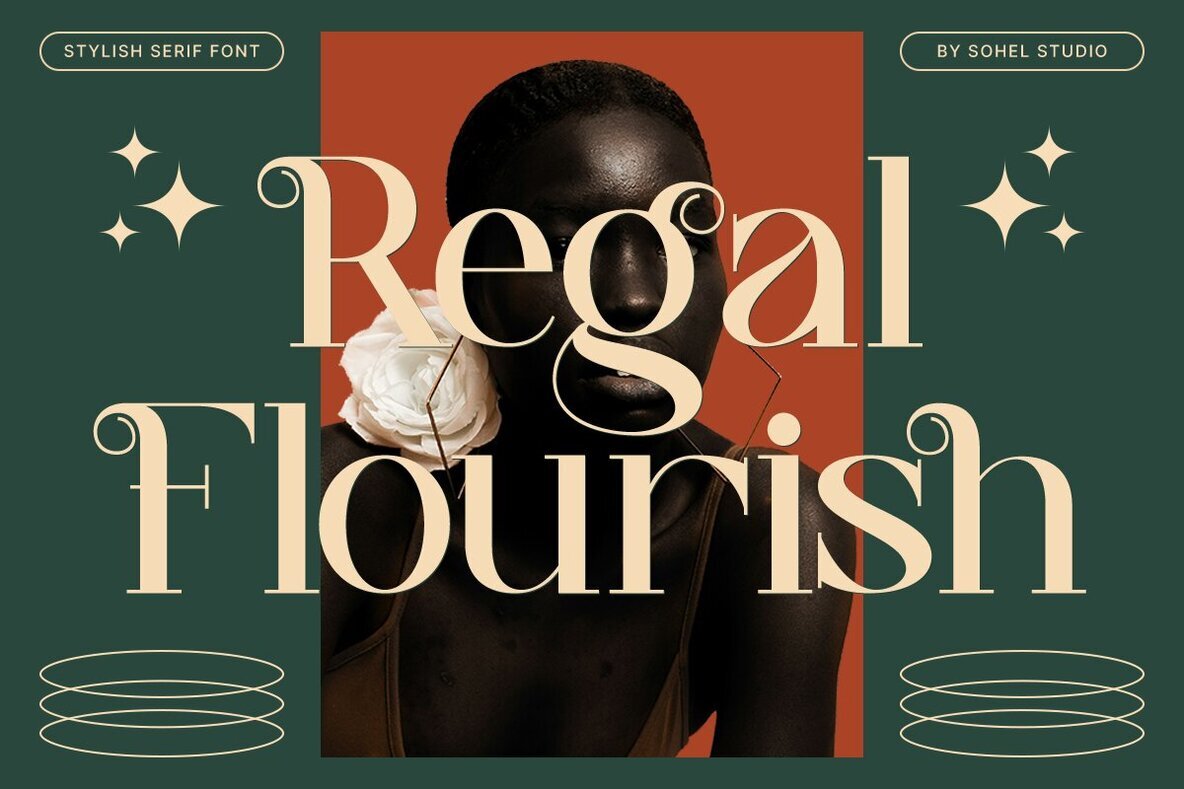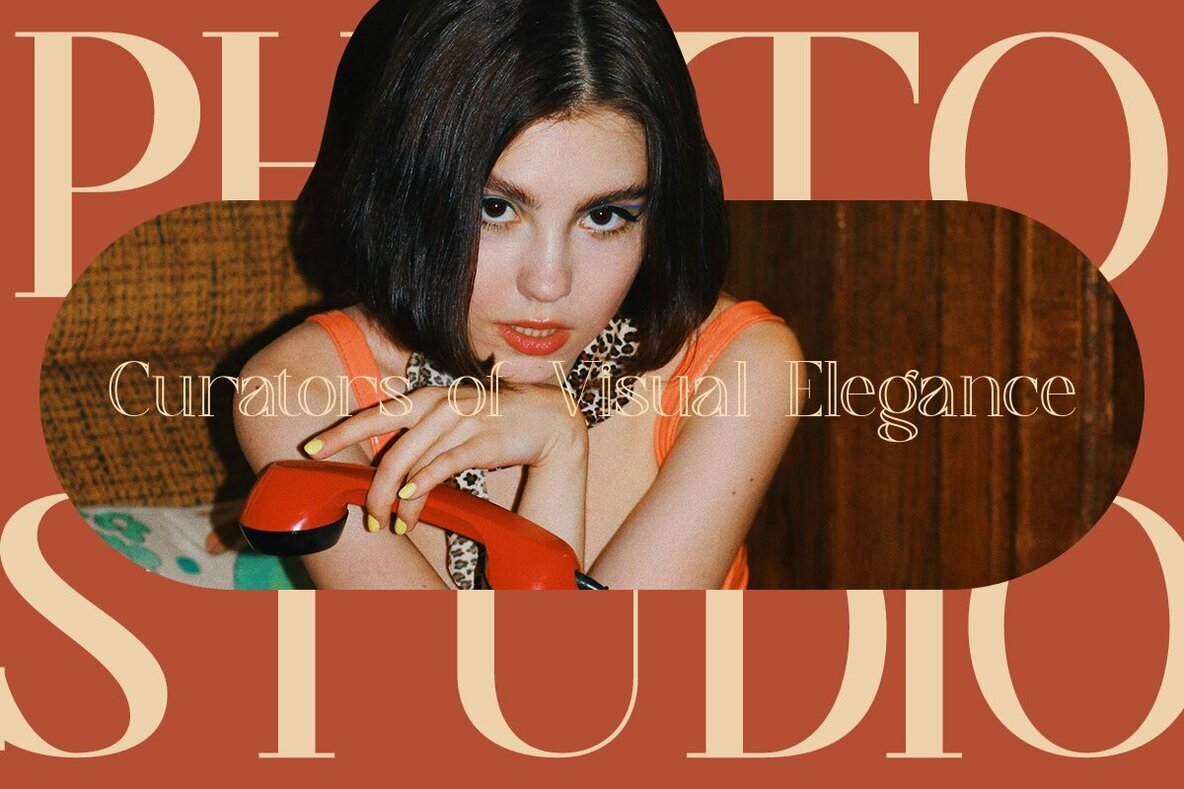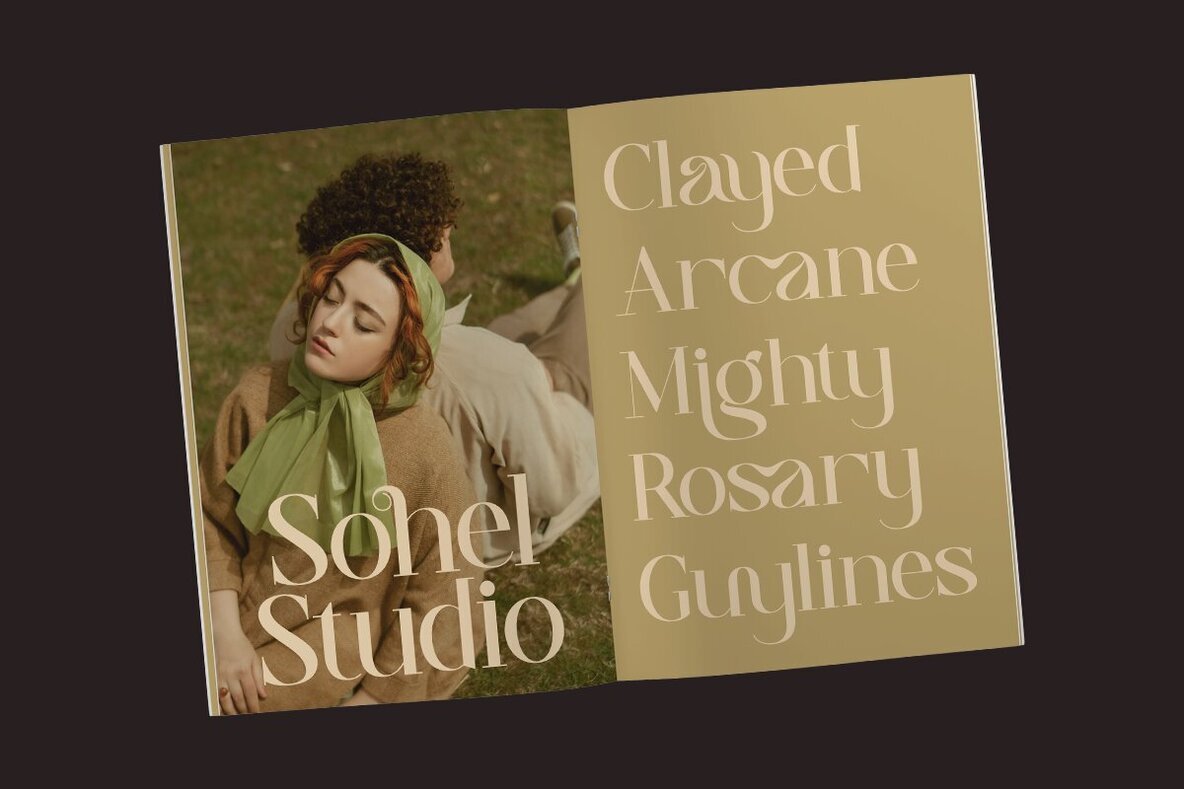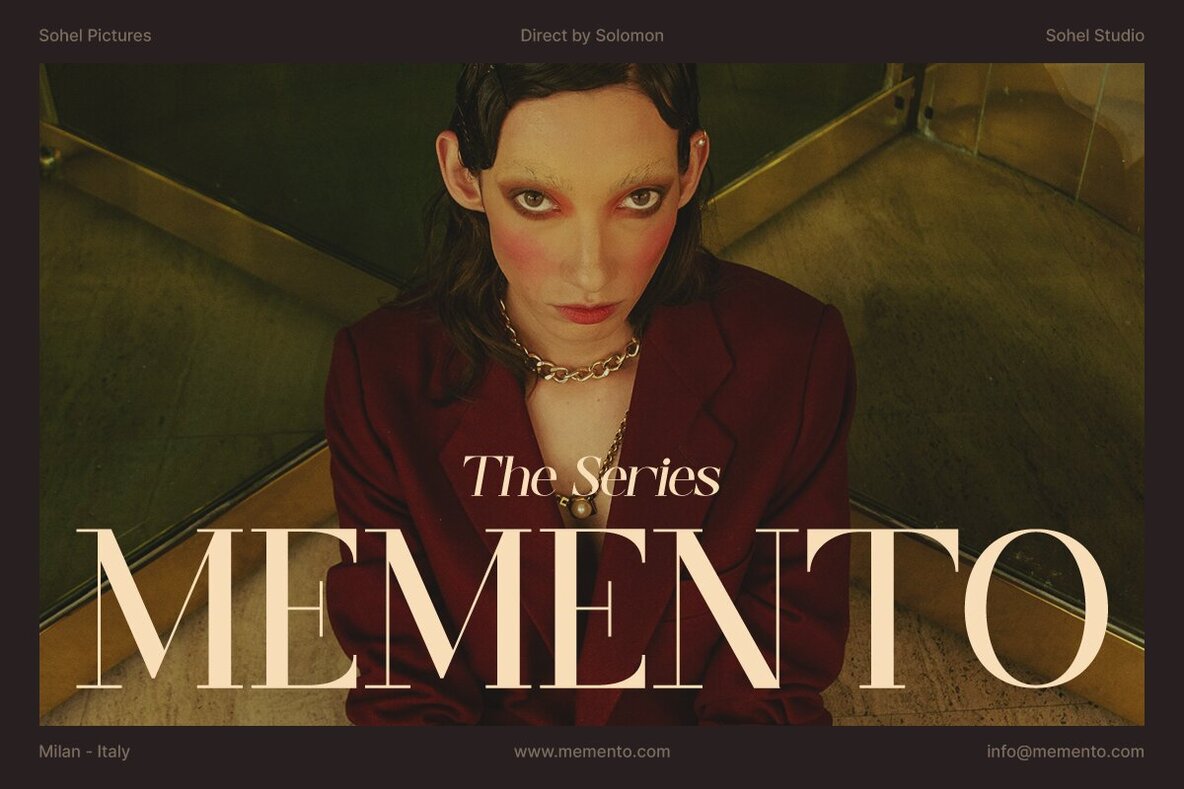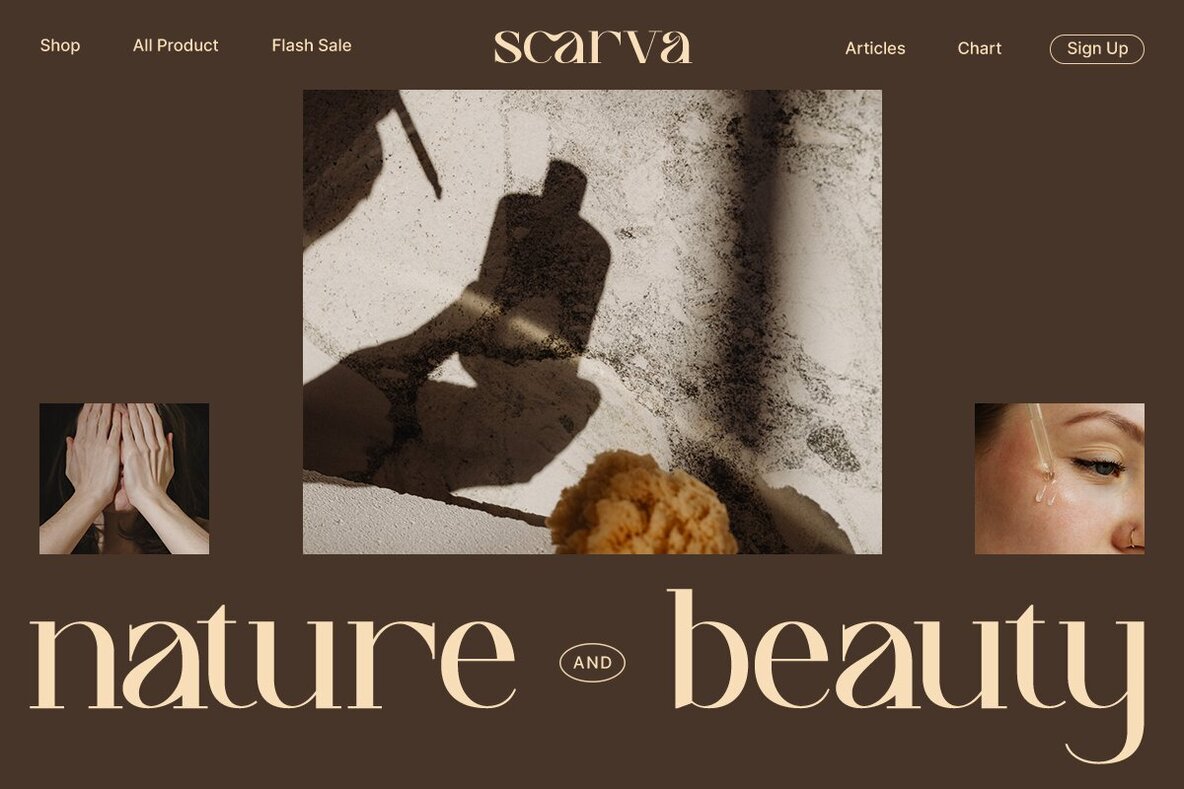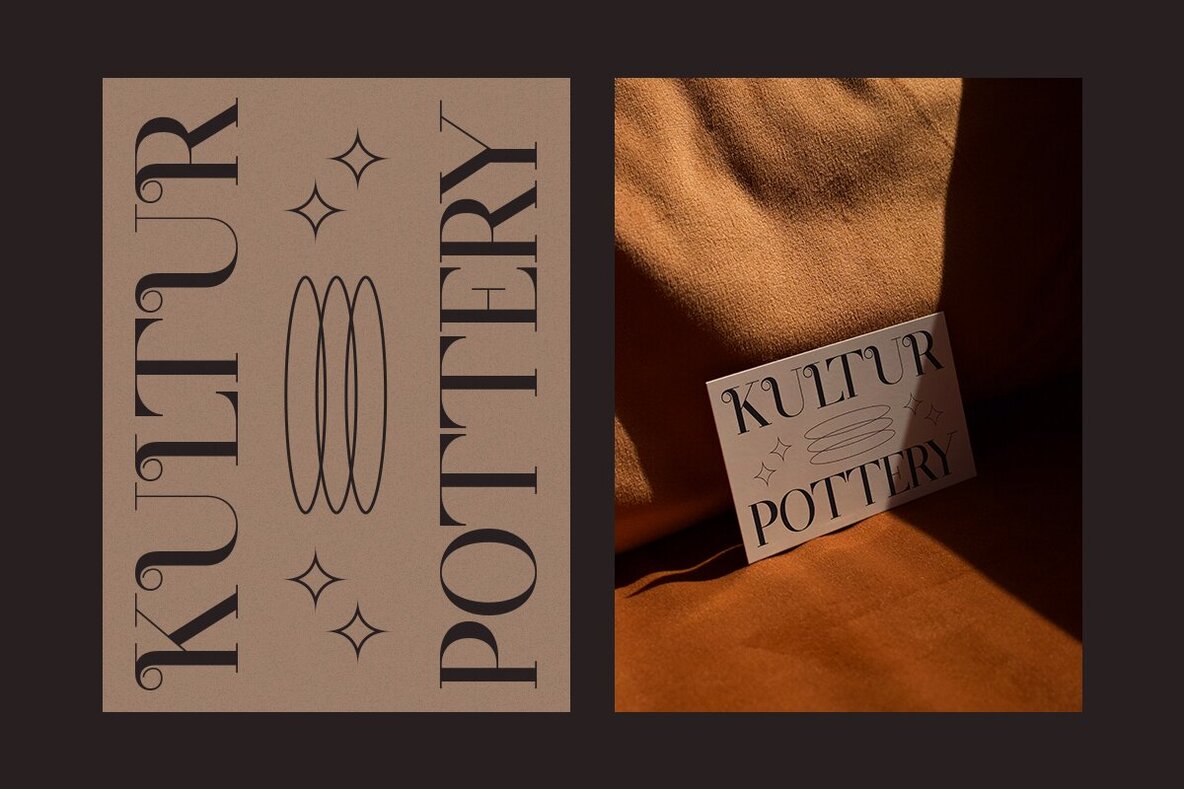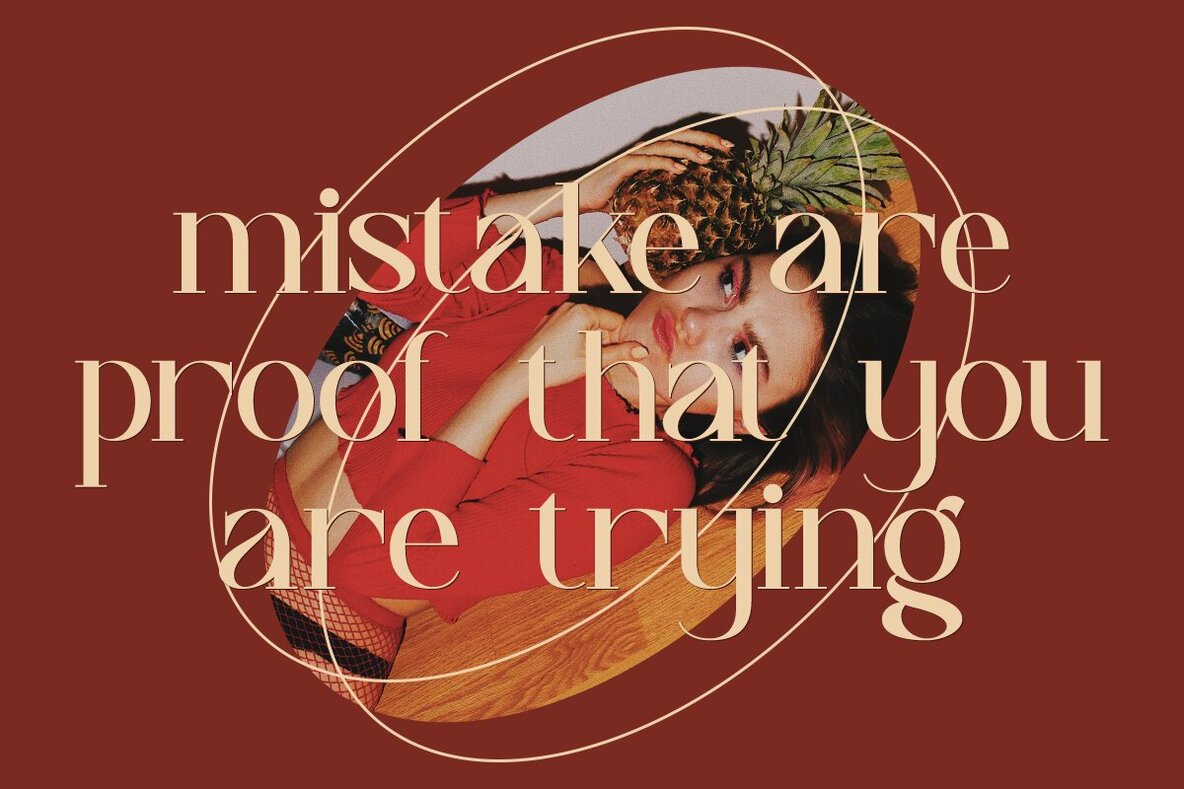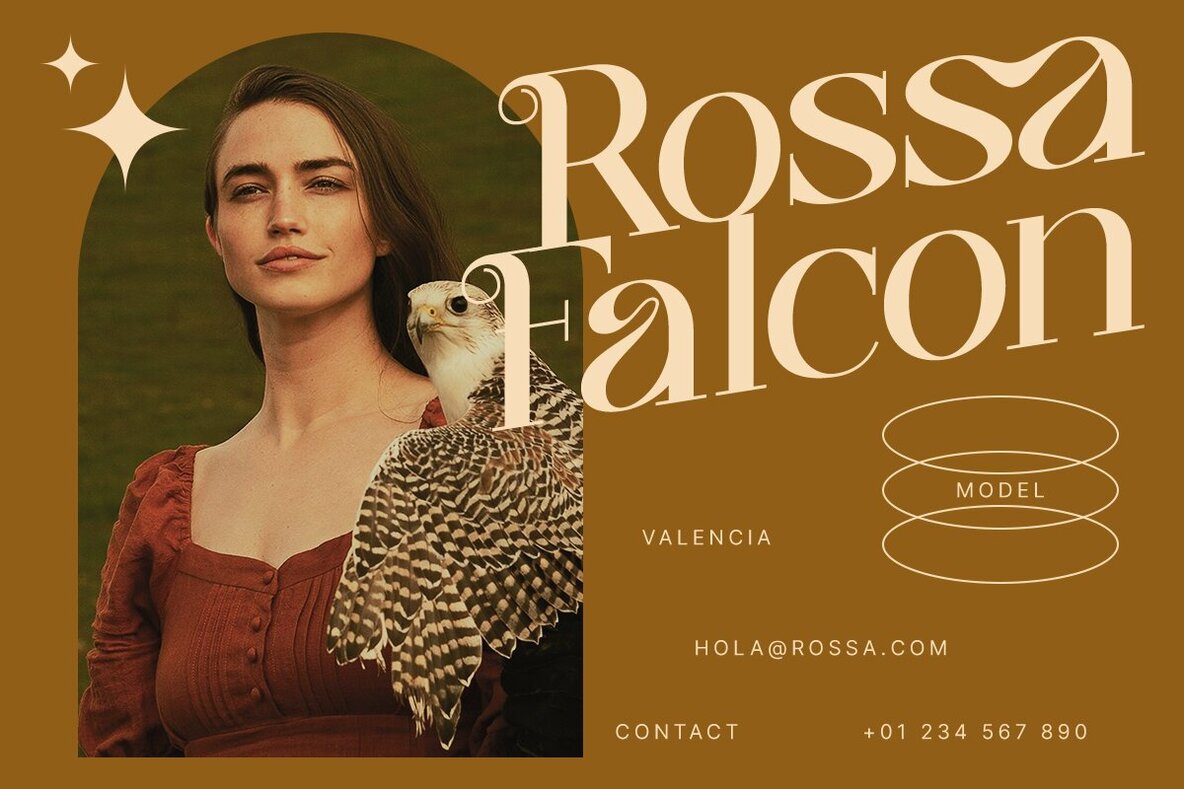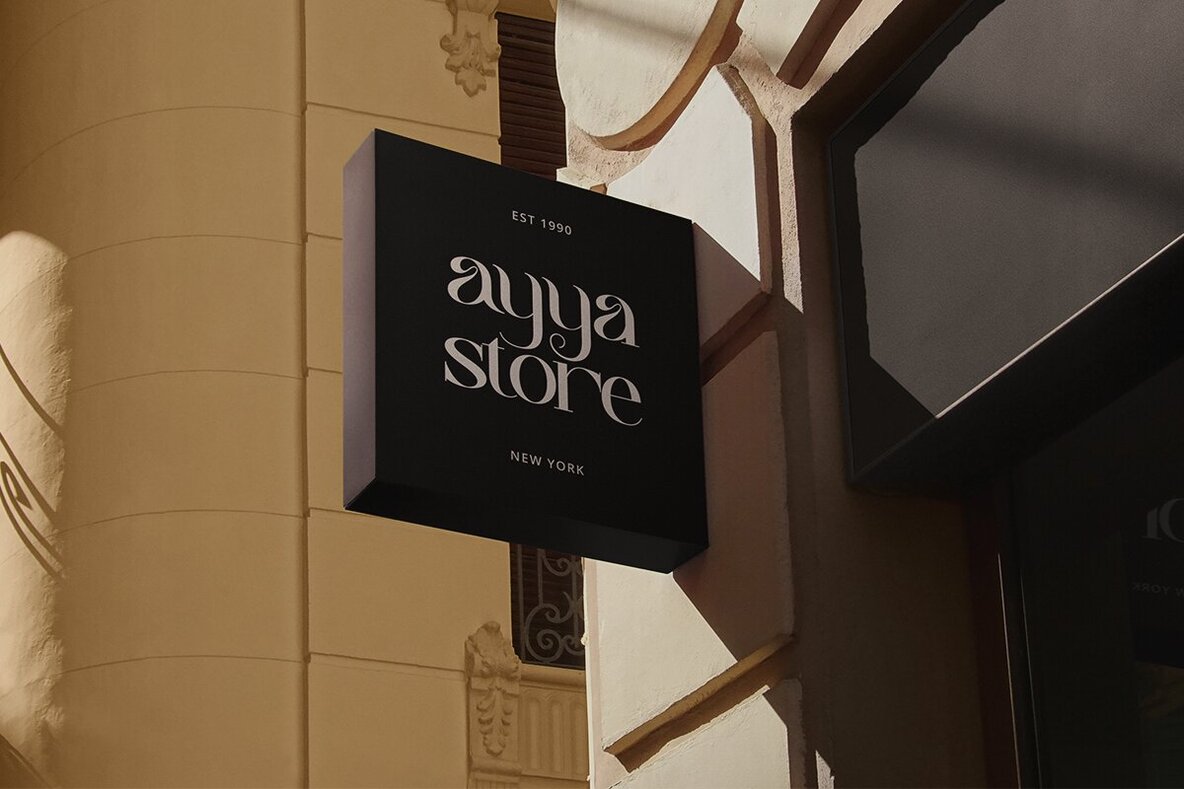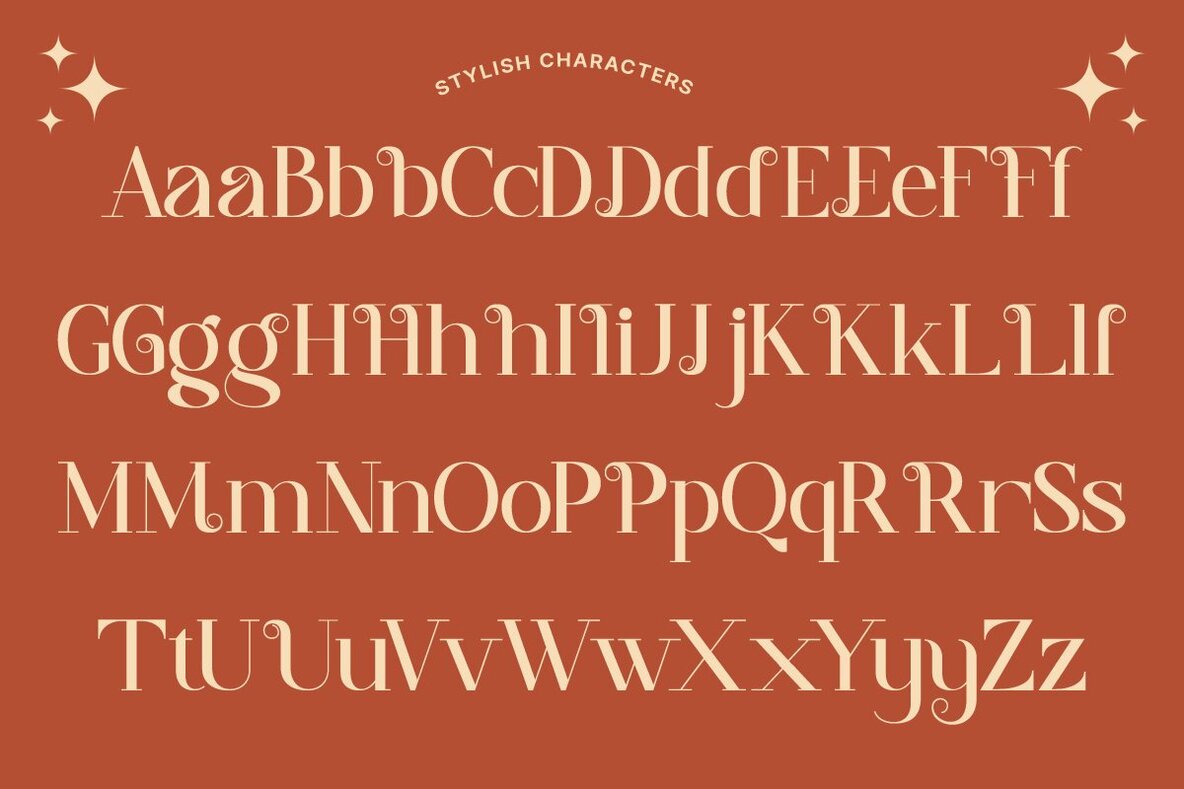
The Regal Flourish typeface is a bold, high-contrast display serif that masterfully balances classical luxury with a modern editorial flair. With its elegant curves, dramatic swashes, and chic alternates, this typeface offers a sophisticated typographic voice ideal for elevating branding, packaging, and digital design projects. Embrace the blend of contrast and style that Regal Flourish brings to premium aesthetics, fashion campaigns, and high-end packaging. Whether crafting a standout logo or composing a stunning magazine headline, it imbues your projects with grace and sophistication. Perfect for luxury branding, cosmetic packaging, creative direction, fashion lookbooks, and minimalist websites. Whether developing visual identity systems or print campaigns, Regal Flourish provides a refined typographic foundation that communicates with clarity and style.Regal Flourish: A Fusion of Classical Luxury and Modern Edge